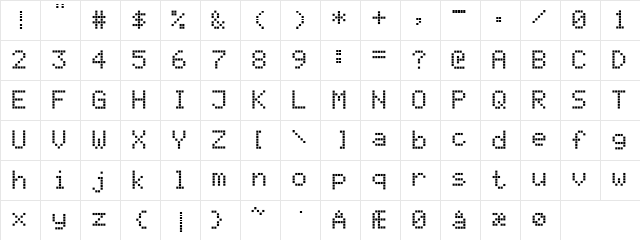
Register Regular
Design Context for Register
Register is a composed and adaptable typeface that performs quietly and consistently across a wide range of design contexts.